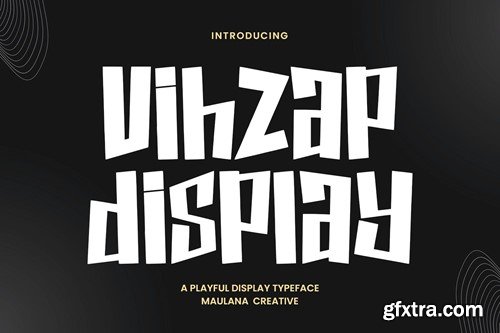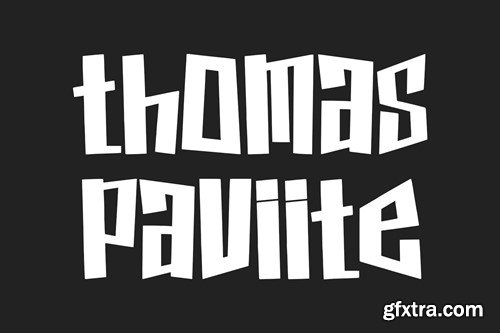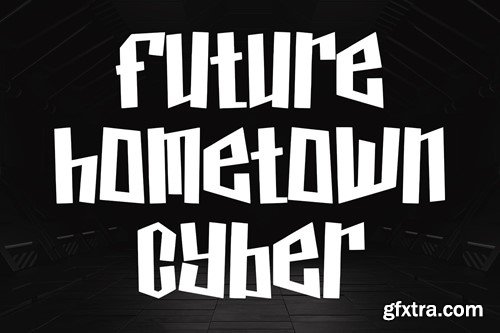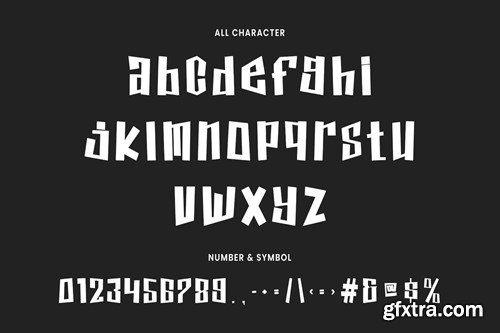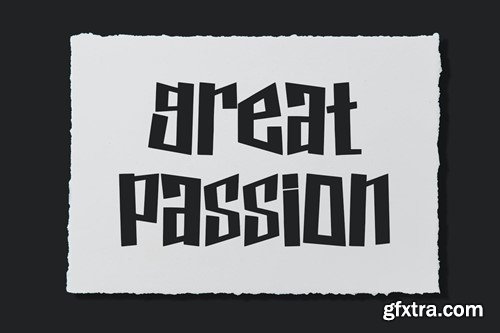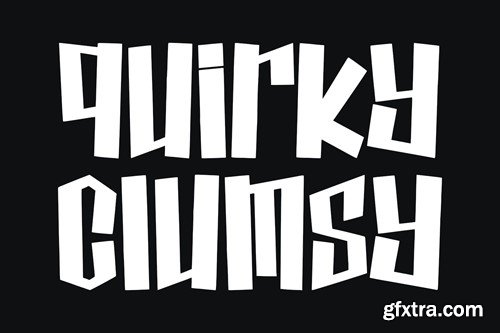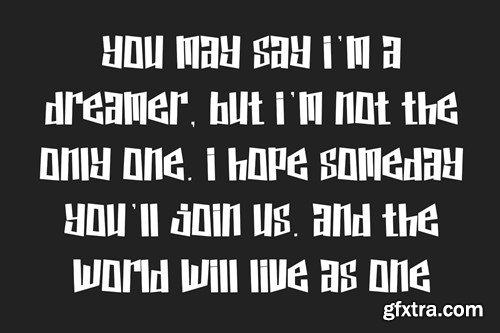
Vihzap Playful Font
Vihzap playful display typeface. Heavy stroke, fun character with a bit of ligatures. To give you an extra creative work. Vihzap playful display typeface support multilingual more than 100+ language. This font is good for logo design, Social media, Movie Titles, Books Titles, a short text even a long text letter and good for your secondary text font with script or serif. Make a stunning work with Vihzap playful display typeface. What you get: Cheers, Maulana Creative